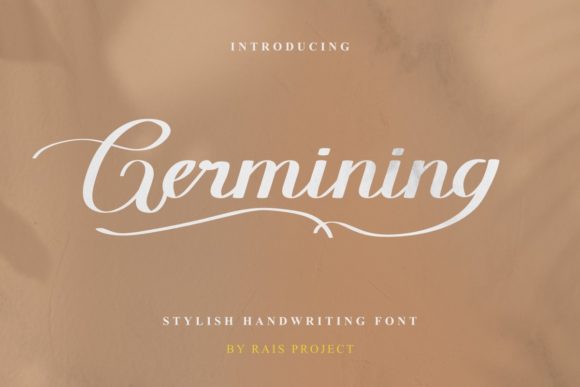
If you are looking for an enchanting font that will make your wedding invitations, cards, or other designs stand out, look no further than Germining Font! This sweet and well-balanced handwritten font is pure magic, adding a touch of charming elegance to any project. With its delicate and playful curves, Germining is perfect for creating a warm and inviting atmosphere that will leave a lasting impression.
One of the things that sets Germining apart from other fonts is its versatility. Whether you are using it for personal or commercial projects, Germining is sure to make your designs shine. Its PUA encoding makes it easy to access all of the glyphs and swashes, giving you endless possibilities for customization.
But what truly makes Germining Font special is its emotional appeal. This font has a way of capturing the joy and romance of your special day, making it the perfect choice for any project that needs a touch of love. So if you are looking for a font that will make your designs stand out, look no further than Germining Font!